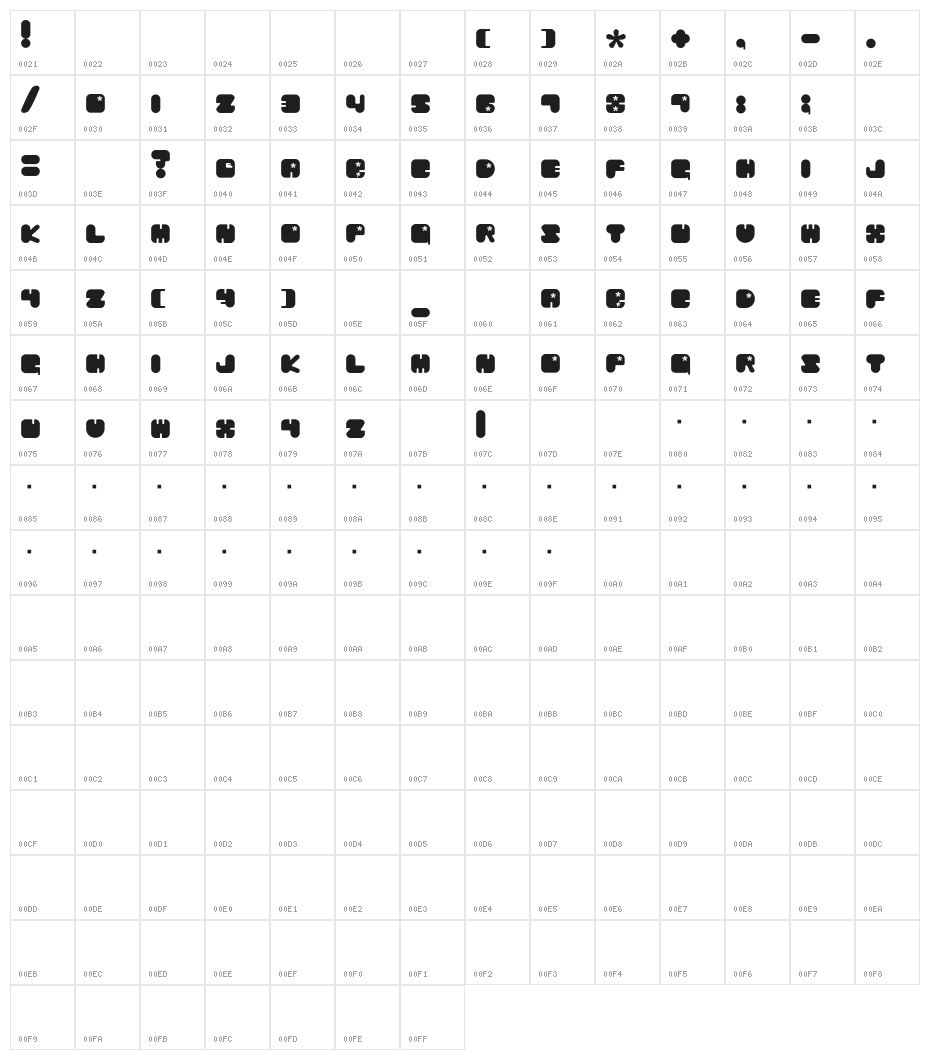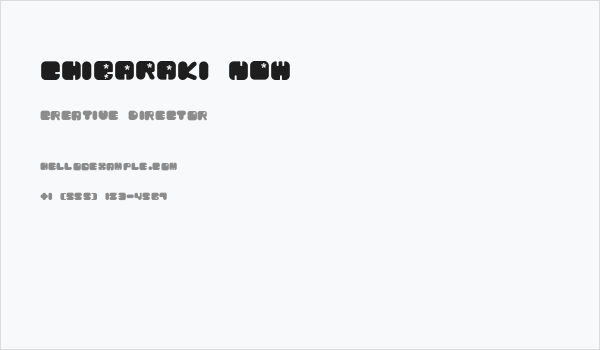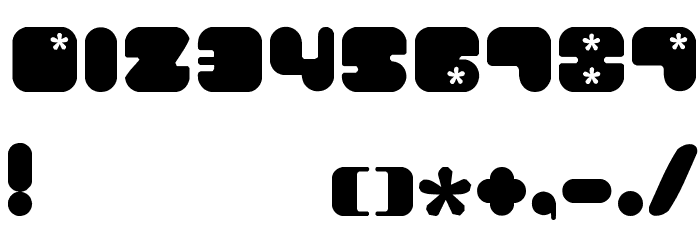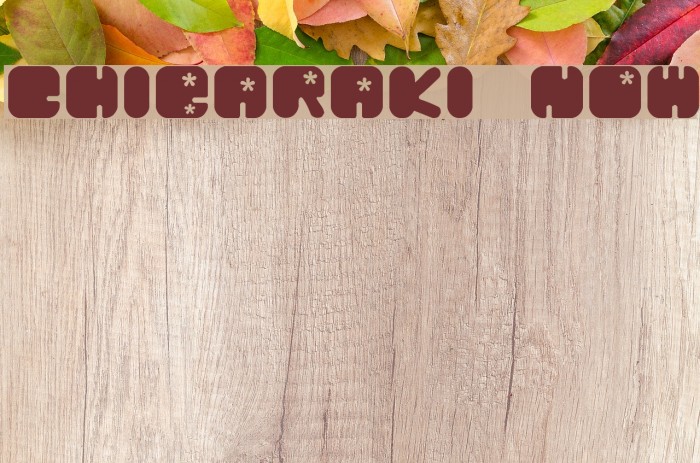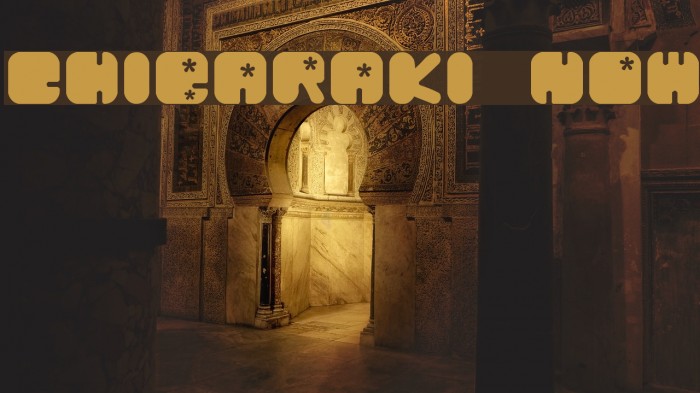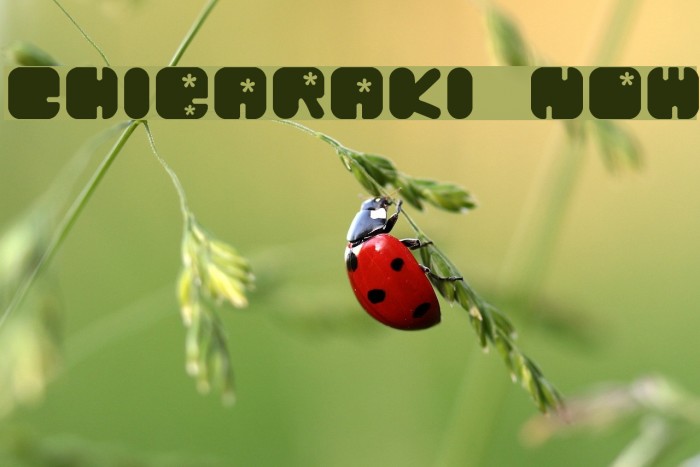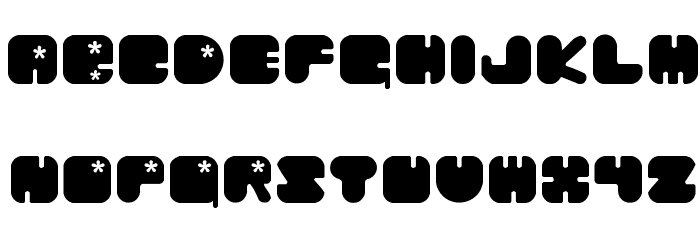
Chibaraki Now Font
Chibaraki Now Description
This font features a bold and playful design with rounded edges and a distinct use of negative space, incorporating star-like cutouts within the characters. The letters are uniformly thick, creating a strong visual impact. Its geometric shapes and consistent weight give it a modern and decorative appearance. The font is highly stylized, making it suitable for creative and eye-catching projects. The characters are evenly spaced, ensuring readability despite their unique design. The inclusion of special characters and numbers maintains the font's cohesive style, making it versatile for various applications.
| Proposed Projects | Ideal for branding, posters, children's books, and playful graphic designs. |